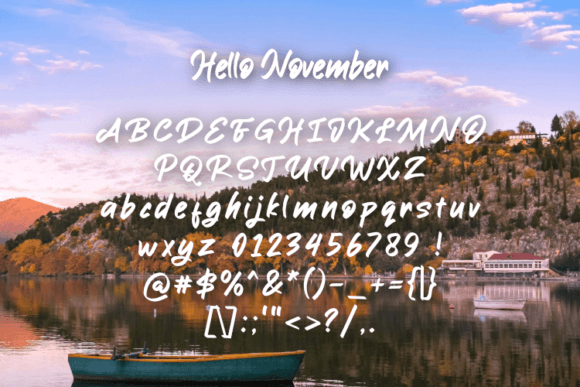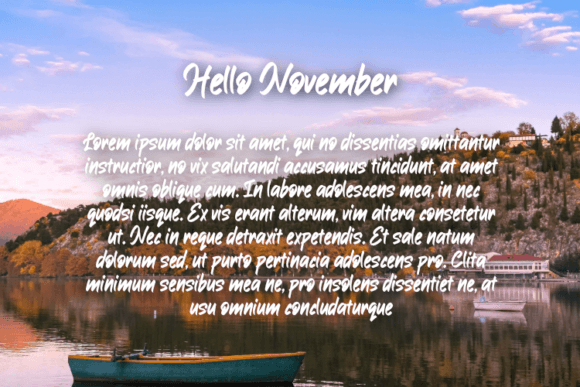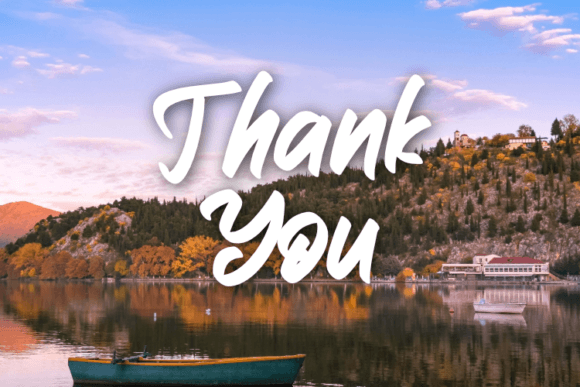
Have you ever stared at a blank canvas, struggling to bring your vision to life? That’s when the magic happens – the moment you find the perfect font to set your imagination free. For designers, finding the right font can be the difference between a good design and a great one.
Enter the Hello November Font, a versatile and modern font that’s perfect for crafting clothing labels, t-shirt designs, and other creative projects. With its sleek design and endless adaptability, this font is a valuable addition to any designer’s toolkit. Whether you’re working with graphic design software or a text editor, the Hello November Font comes in both otf and ttf files, ensuring seamless integration and compatibility.
Discover the limitless possibilities of the Hello November Font and take your designs to the next level. With its modern aesthetic and versatility, this font is sure to become your go-to choice for any creative project.
Hello November Font Key Features
- Font Family: Hello November is a unique, hand-drawn script font.
- Unique Characteristics: Features a beautiful, hand-crafted design with subtle imperfections, giving it a personal touch.
- Usage: Ideal for use in creative projects, such as wedding invitations, greeting cards, and other designs where a unique, handwritten feel is desired.
Designer Review: Hello November Font
Hello November Font is a unique, elegant script font that can elevate your design to the next level. The font is perfect for creating a cozy and inviting atmosphere, which makes it ideal for designs related to fall, winter, or anything that conveys warmth and comfort. ✨
One of the standout features of this font is its organic feel, which is reminiscent of handwritten letters. The subtle imperfections and variations in letterforms make the font feel more natural and less robotic. ✨
- Unique and elegant design
- Organic feel, perfect for creative projects
- Subtle imperfections for a natural look
- May not be suitable for formal or corporate designs
- Can be challenging to read in smaller font sizes
In conclusion, Hello November Font is a beautiful and creative script font that can add a personal touch to your designs. While it may have some limitations, it is well worth considering for projects that require a unique and elegant look. ✨
The Hello November font is a great choice for creating a warm and inviting atmosphere. Some common use cases include:
- Birthday invitations and party decorations
- Wedding stationery and decor
- Seasonal greeting cards and gift tags